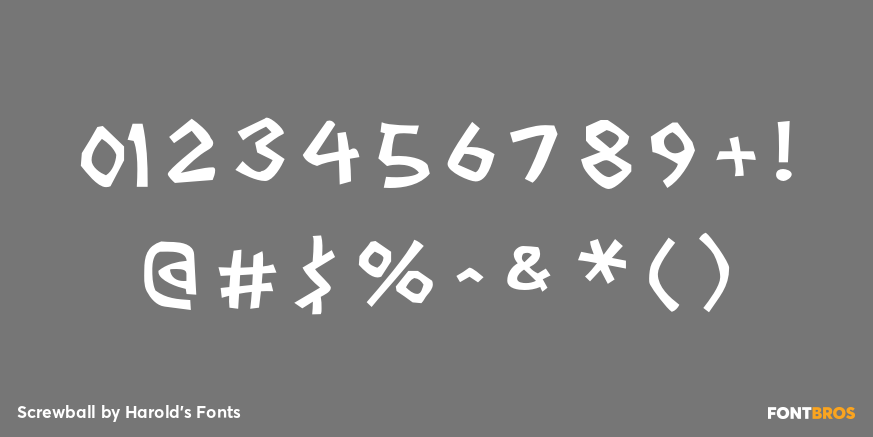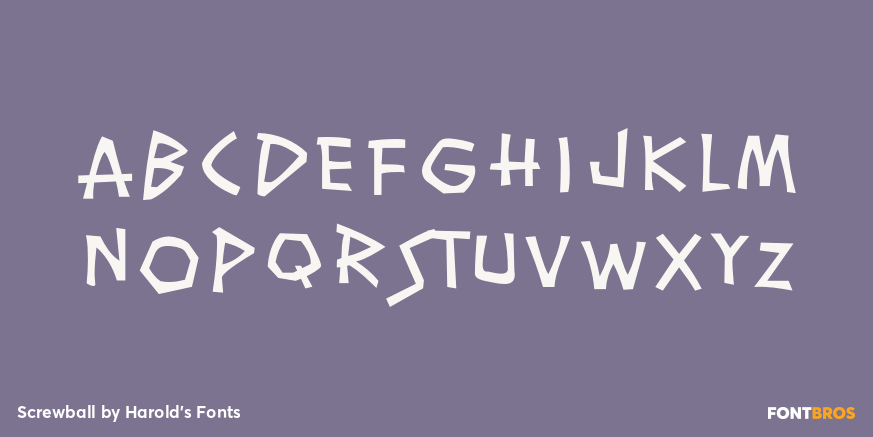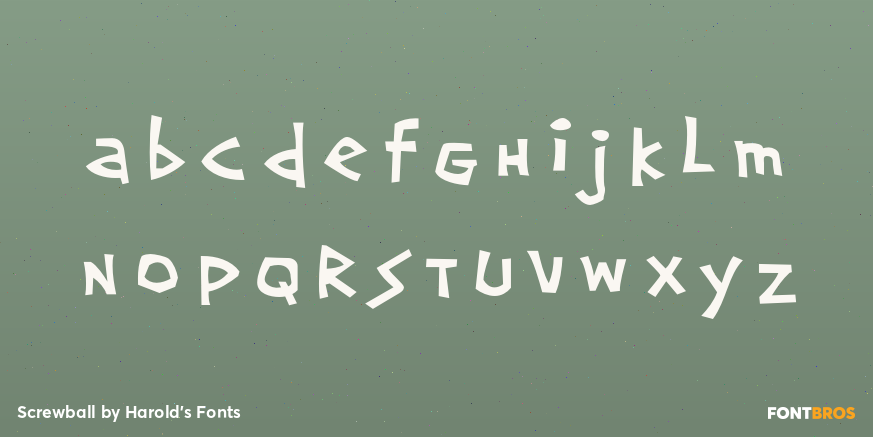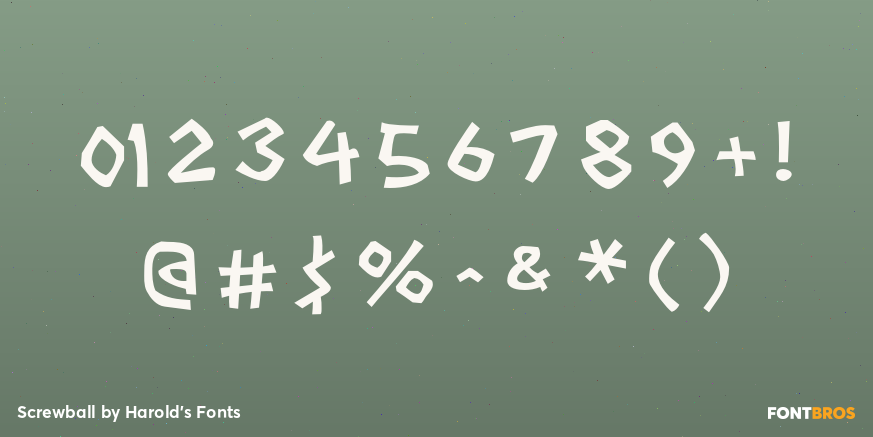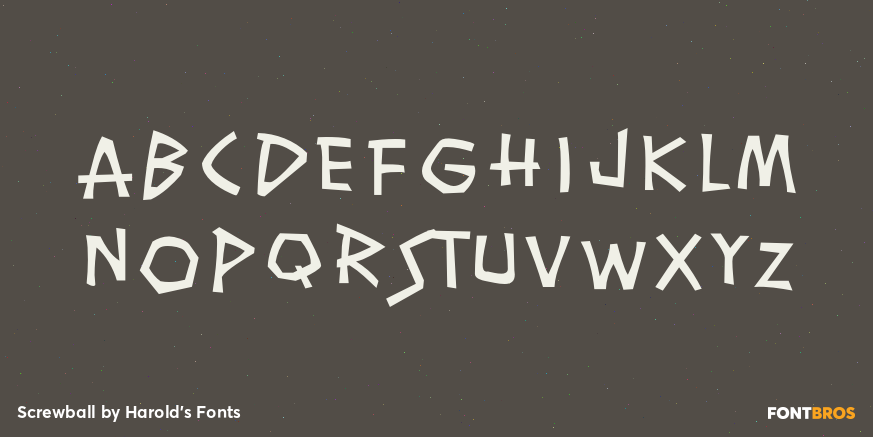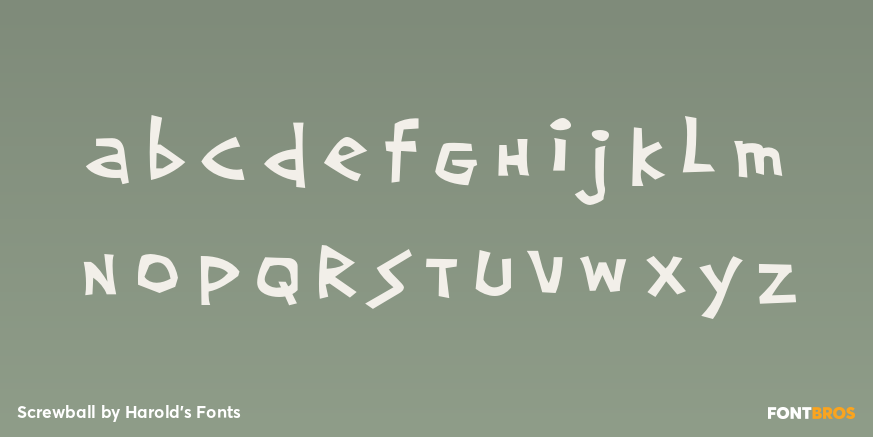
Screwball
Free DownloadSCREWBALL looks like whimsical hand-lettering. It's unpredictable with lots of close-fitting pairs. It was inspired by the hand-lettered titles of the 1972 movie "What's Up, Doc?", designed by The Golds West Inc.
Version 1.5 includes an expanded character set and many alternate characters that make use of Opentype features to create a more hand-lettered look, as well as improved spacing and kerning.
What's Up, Doc? is a personal favorite, directed by Peter Bogdanovich, starring Barbra Streisand, Ryan O'Neal, and, in her first film, the late Madeline Kahn, to whose memory this font is dedicated.